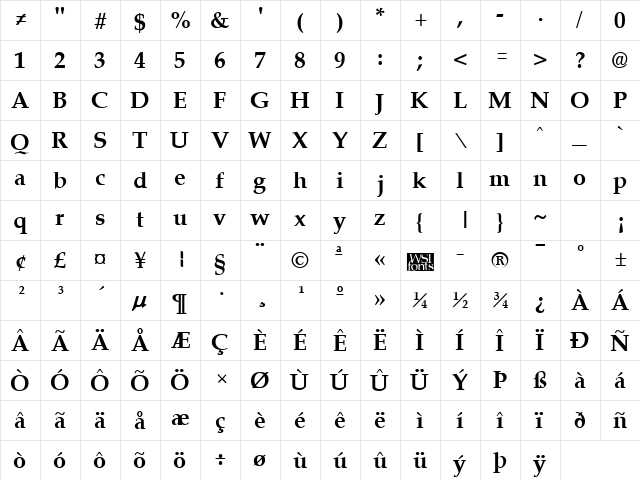
Palisade Bold
Design Context for Palisade Typeface
Palisade offers clean, dependable letterforms without strong stylistic allegiance, making it a practical choice for designers who need flexibility. Its bold stroke weight gives it real presence on the page.